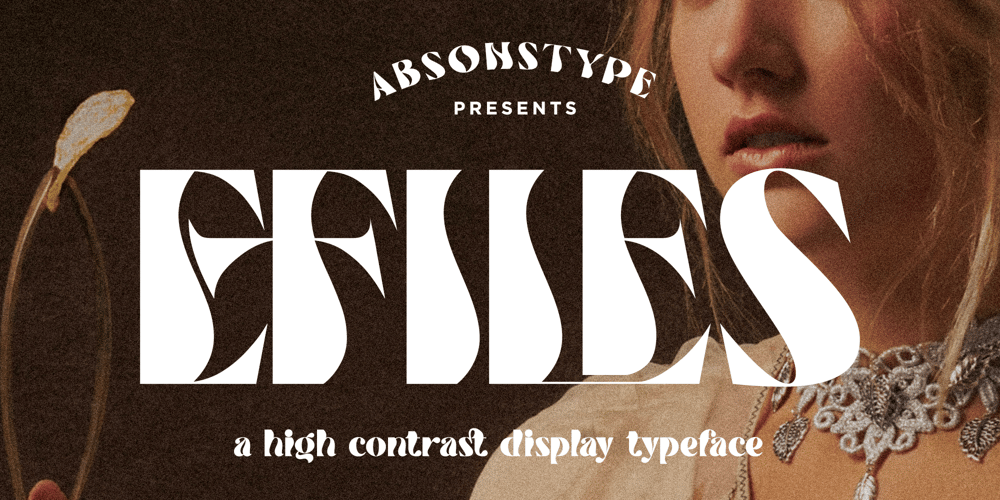
Efiles Font Family was designed by Edhi Prayitno and published by Absonstype. Efiles contains 1 styles and family package options. EFILES is the playful display typeface with high contrast combine uppercase and lowercase looks and feel nice balanced. Provide the ligatures font in variant style make the design letter looks nice. Honestly it works perfectly for headlines, logos, posters, packaging, T-shirts and much more.Recommended to use in Adobe Illustrator or Adobe Photoshop with opentype feature.Ligatures feature is default setting in Adobe Illustrator or Adobe Photoshop in Uppercase character. So when you want not to use the ligatures.Open glyphs panel : In Adobe Photoshop choose tool Window >> Character and then please click fi symbol In Adobe Illustrator choose tool Window >> Type >> Open Type and then please click fi symbol If you have questions, just send me a message and I’m glad to help.Have a great day,Absonstype